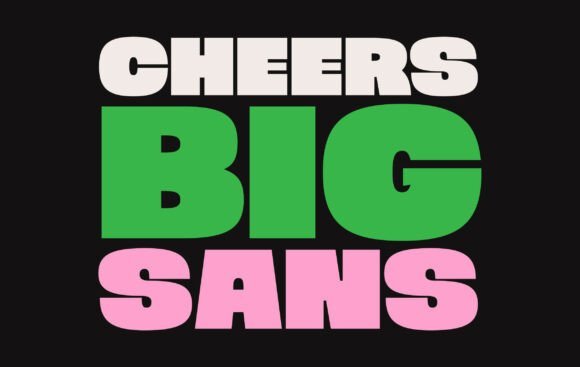
The Perfect Pour: Introducing Cheers Big Sans Font
Remember that moment when a bold, eye-catching design stopped you dead in your tracks? Maybe it was a quirky label on a craft beer, a vibrant snack packaging, or a playful logo that screamed fun? That’s the magic of effective typography, and it all starts with a font that makes a statement.
Enter Cheers Big Sans Font, a game-changing display font that’s perfect for projects that need to stand out from the crowd. With its bold, all-caps design, this chunky sans serif font is the ultimate attention-grabber, ideal for packaging, labels, logos, and branding projects that want to shout their message loud and clear. For designers, Cheers Big Sans Font is a valuable asset that brings personality and attitude to any design, making it a must-have for any creative project.
Cheers Big Sans Font Key Features
- Unique Characteristics: The font features a bold, sans-serif design with rounded corners, making it ideal for use in titles, headings, and other display text
- Language Support: The font supports a wide range of languages, including Latin, Cyrillic, and Greek alphabets
Designer Review: Cheers Big Sans Font
First of all, I have to say that I was excited to dive into the Cheers Big Sans Font. It has a unique personality that can add a lot of charm to designs. ✨ One of the things that works well for this font is its friendly, approachable vibe. It’s perfect for creating a welcoming atmosphere in logos, branding, or even UI design.
Another great thing about Cheers Big Sans Font is its versatility. It comes in a wide range of weights and styles, making it easy to find the perfect version to suit your design needs. ✨ The font also has a nice balance between legibility and aesthetics, making it a great choice for both digital and print designs.
- ⚠️ The font may not be suitable for highly formal or professional designs, as it has a more casual and playful feel.
- ⚠️ The font may not be as readable in smaller font sizes, which can make it challenging to use in certain contexts.
Overall, I think the Cheers Big Sans Font is a great addition to any designer’s toolkit. While it may have some limitations, its unique personality and versatility make it a great choice for a wide range of design projects.
The Cheers Big Sans Font is perfect for:
- Displaying headings and titles
- Creating a modern and playful look
- Adding a touch of whimsy to your designs
For best results, use the font in conjunction with bold or italic styles to add emphasis.